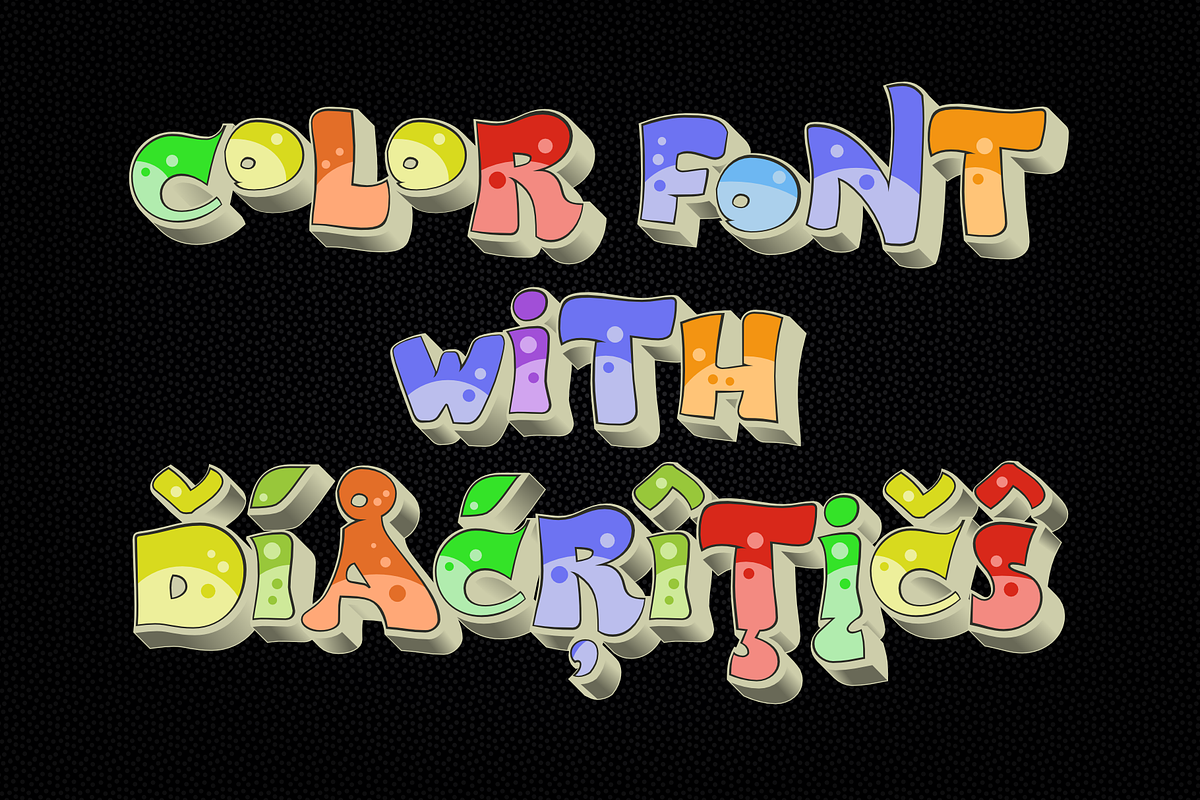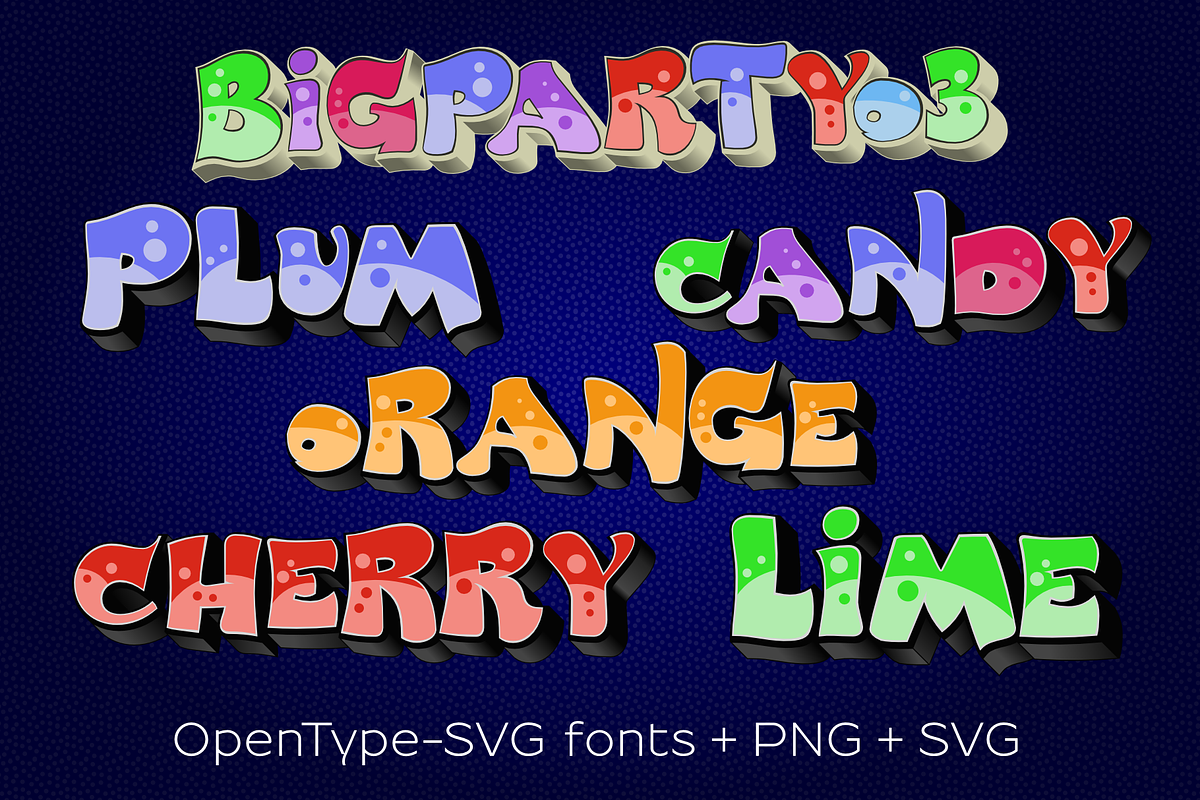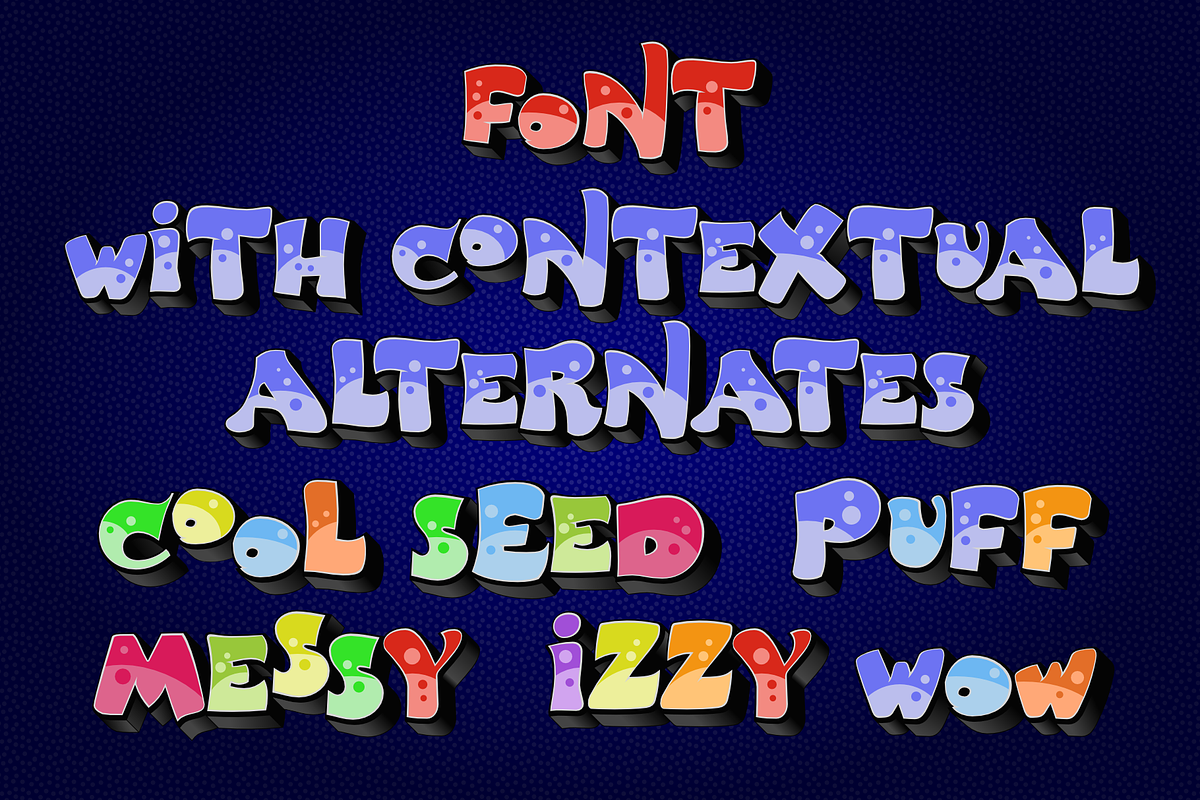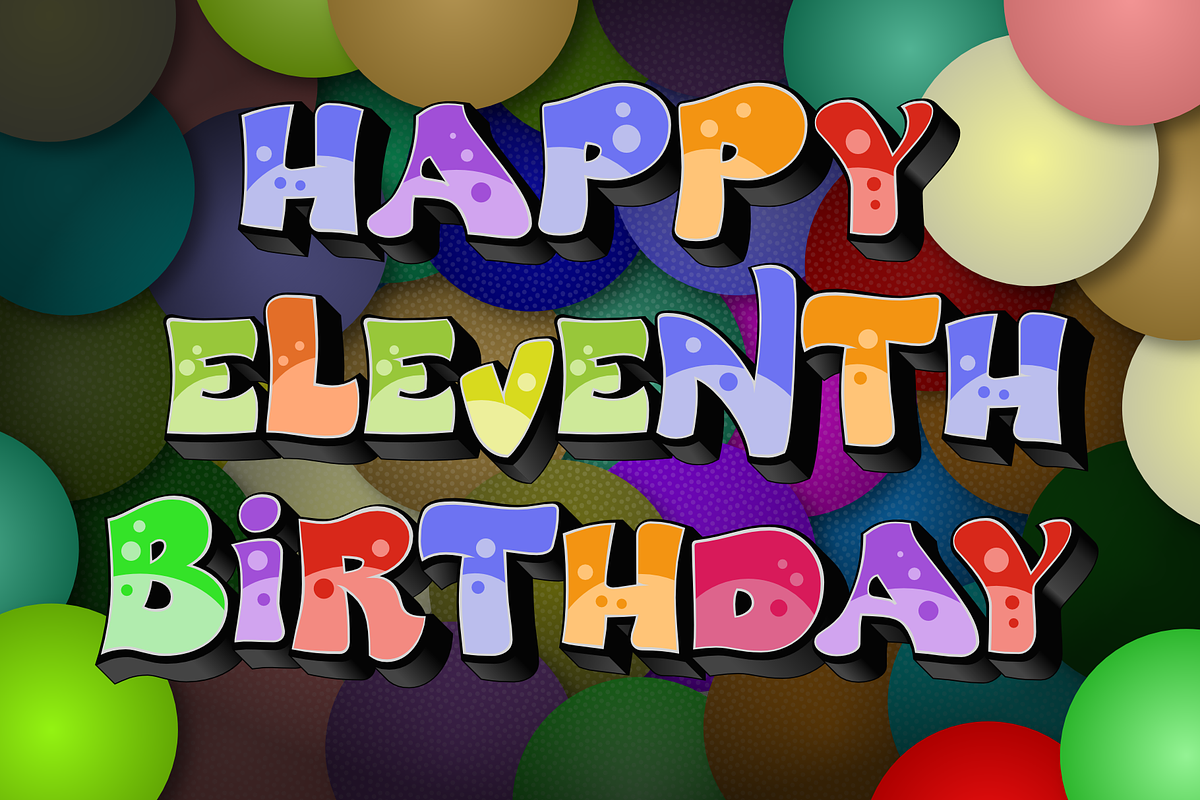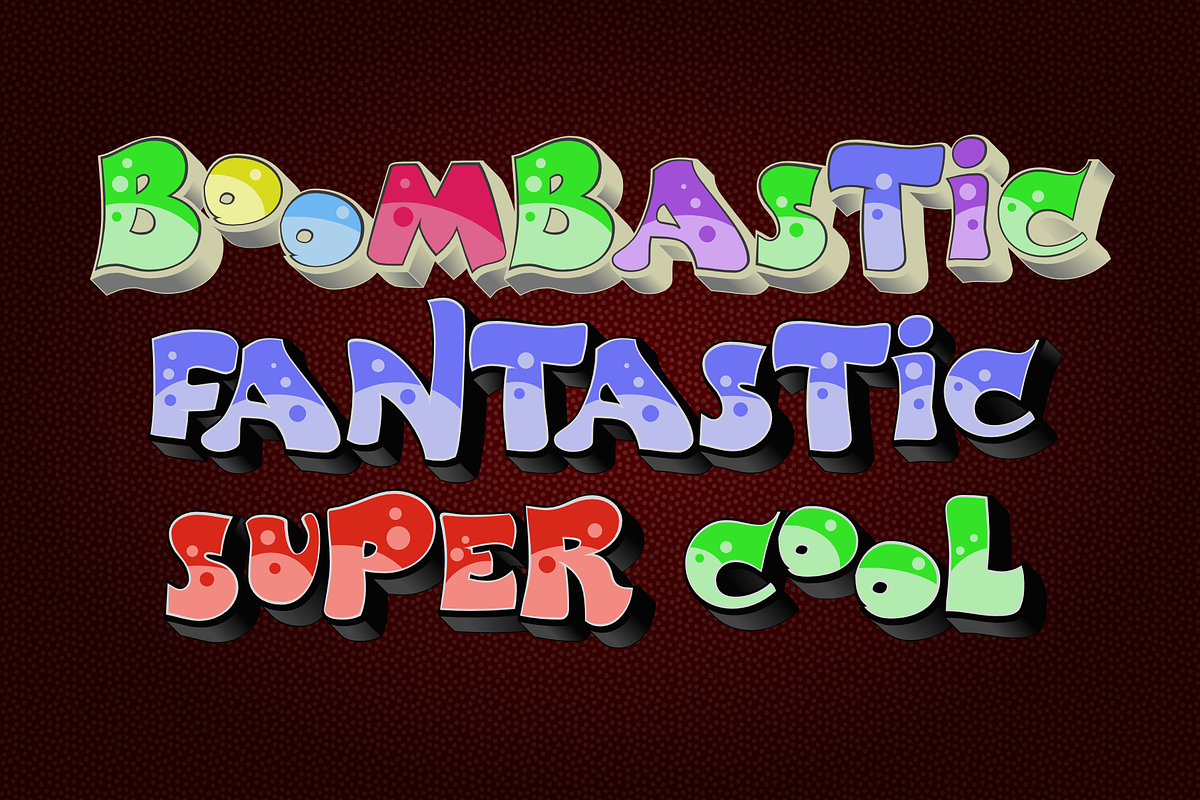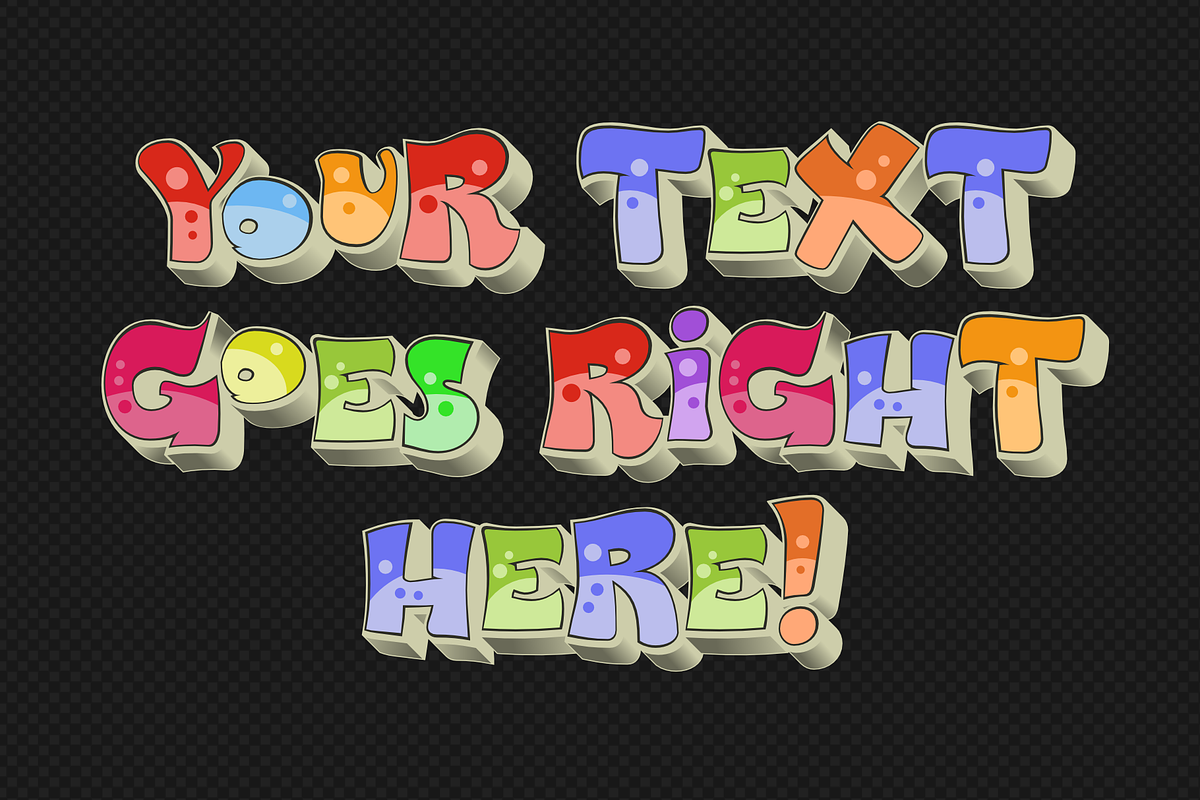
color font BigPartyO3
Decorative, color fonts : candy, candyInv, lime, orange, plum and cherry in OpenTypeSVG .TTF and .WOFF format with:
contextual alternates
color font BigPartyO3 by glukfonts fits naturally into Branding, posters, packaging, typography.